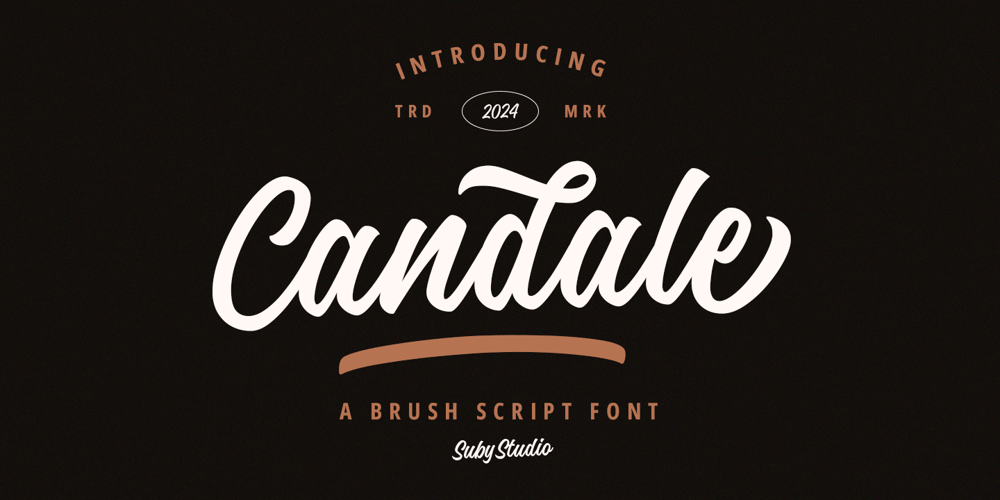
Candale
Candale font
Candale Font Family was designed by Teguh Subiyantoro and published by Suby Studio. Candale contains 1 styles and family package options. Introducing Candale brush script with natural vintage looks. You can use to make logotype, apparel design, quotes, wedding designs, social media posts, product packaging, labels, photography, posters, and othersCandale Features: Uppercase & Lowercase Numbers and symbols Stylistic alternate & ligature Multilingual Characters PUA encoded Thank you for purchasing!